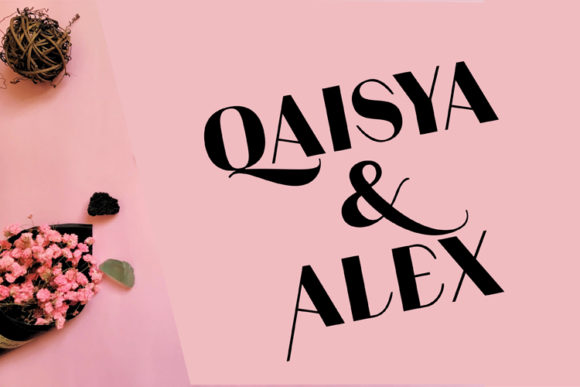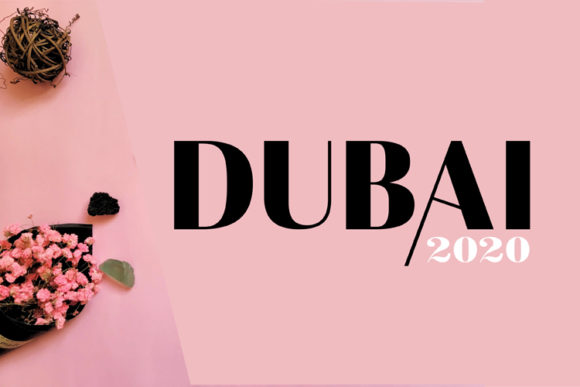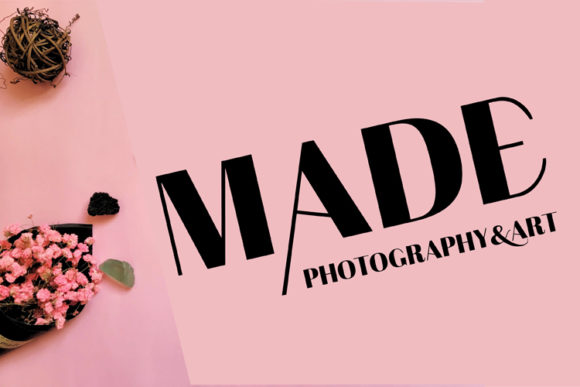
Introduction to Qaisya Font
Qaisya is a display font with an elegant & classic style.
It will add a romantic touch to any crafting project .
Key Features of Qaisya Font
Why Choose Qaisya Font?
Qaisya Font offers exceptional quality and versatility, making it a valuable addition to your design toolkit. Whether you’re creating for personal projects or commercial use, Qaisya Font delivers professional results.